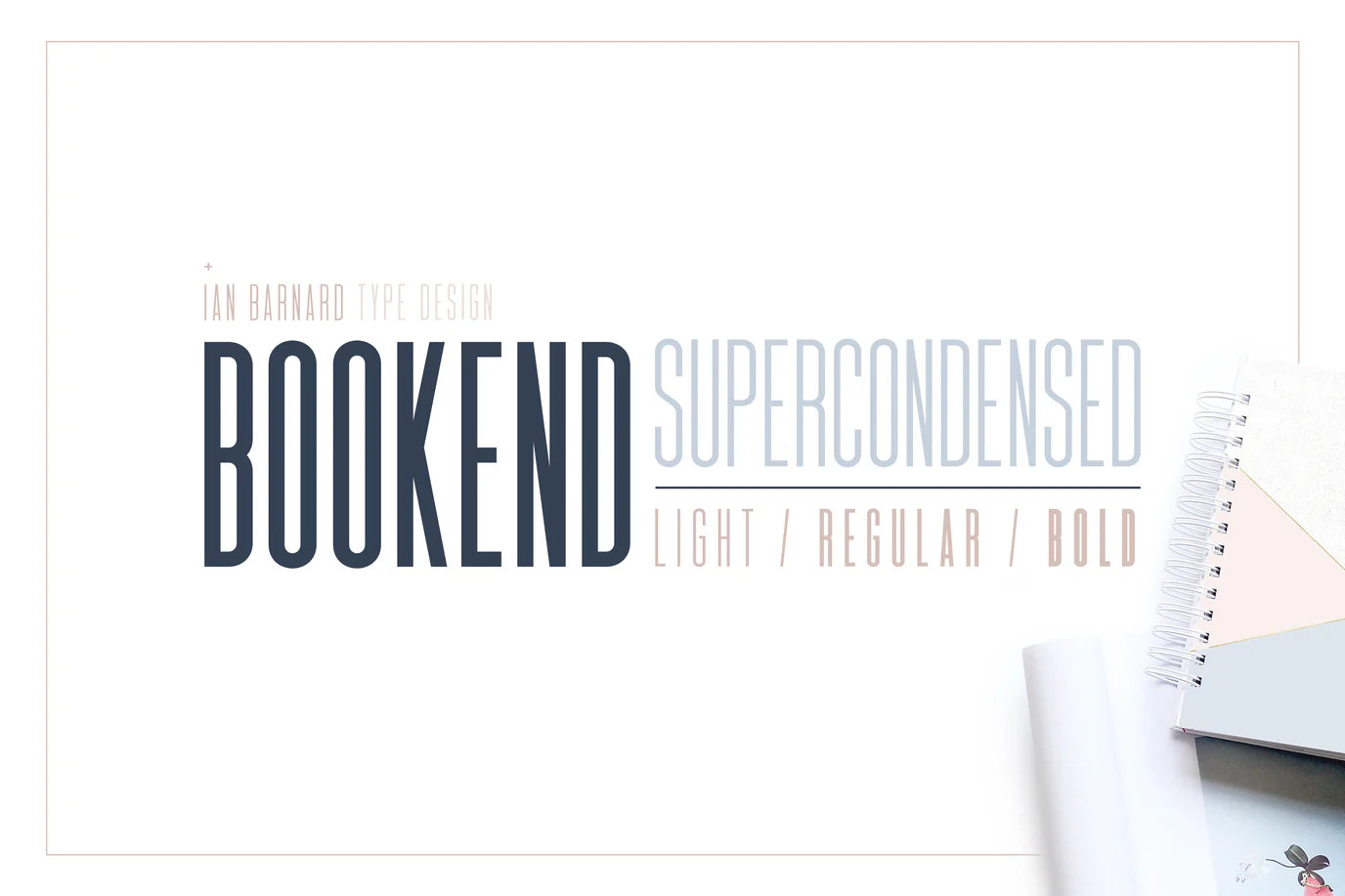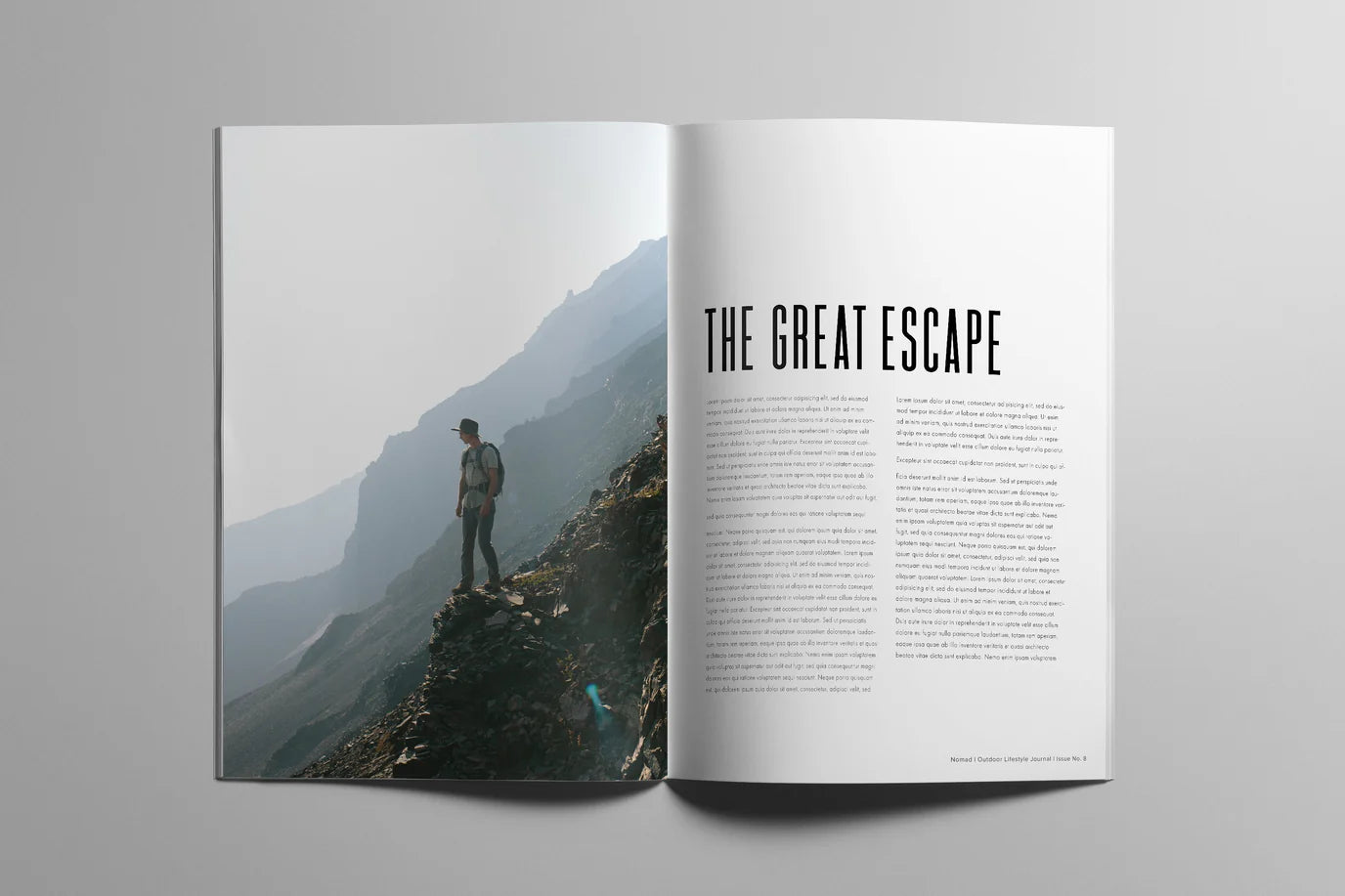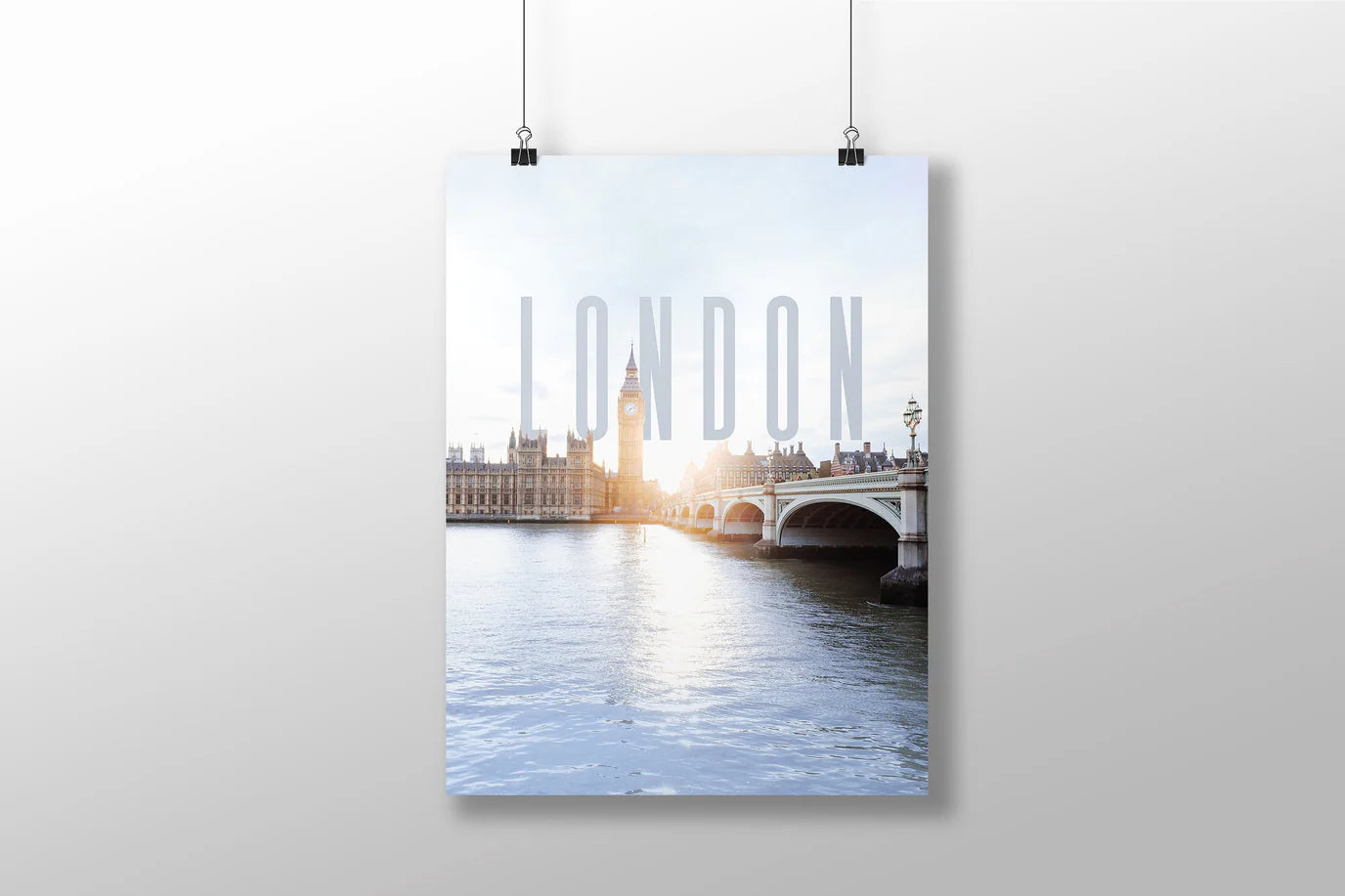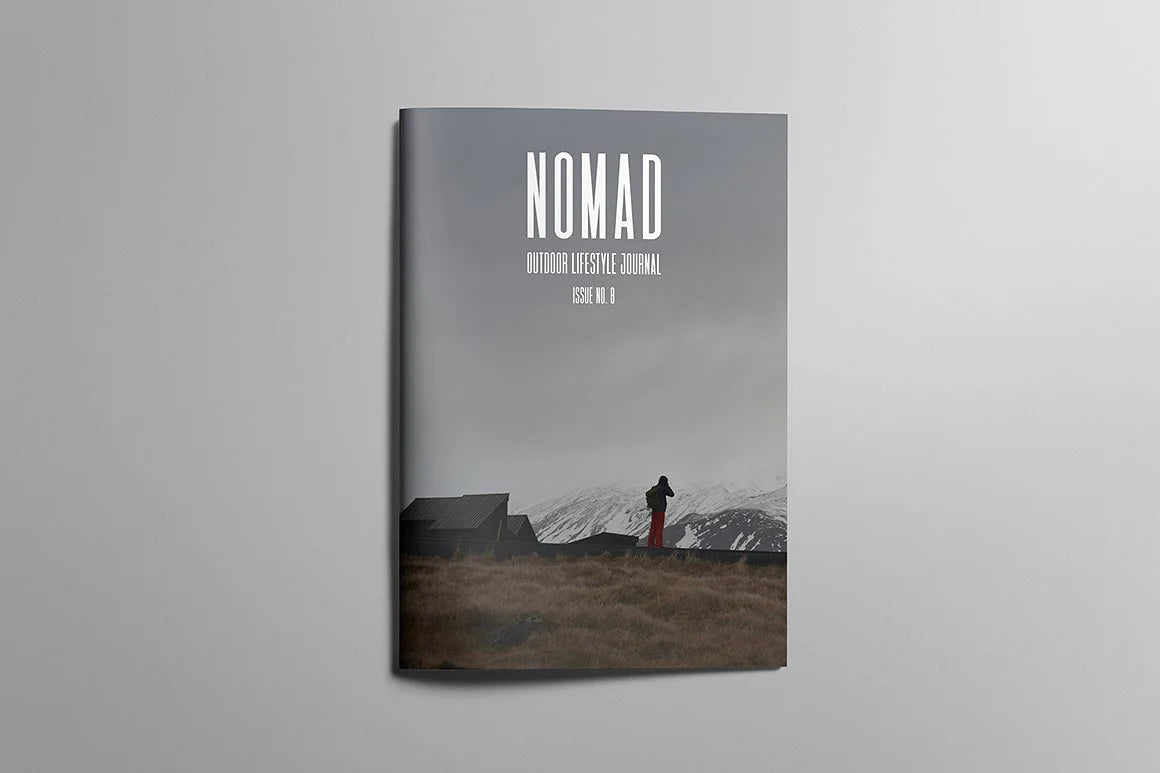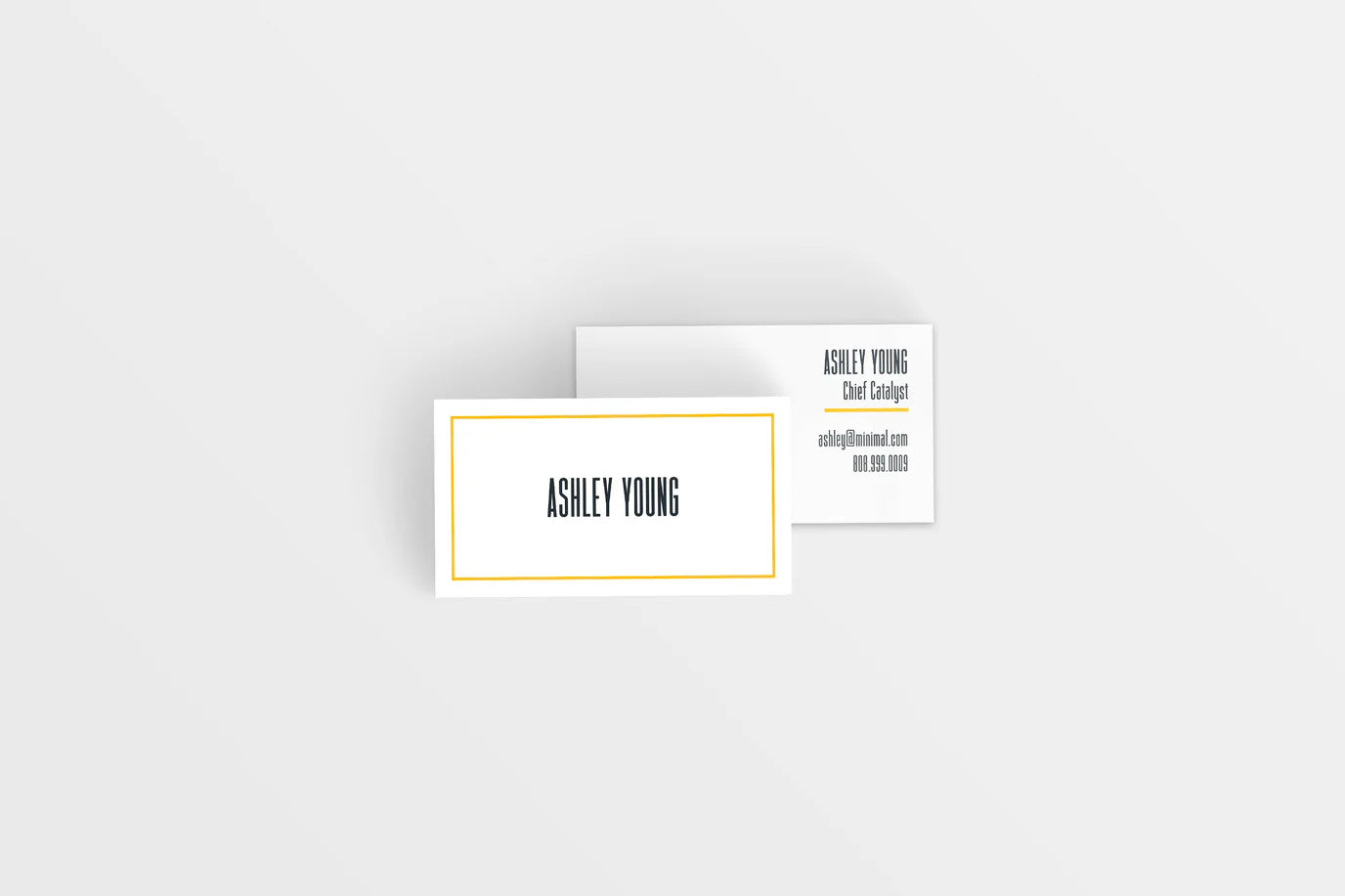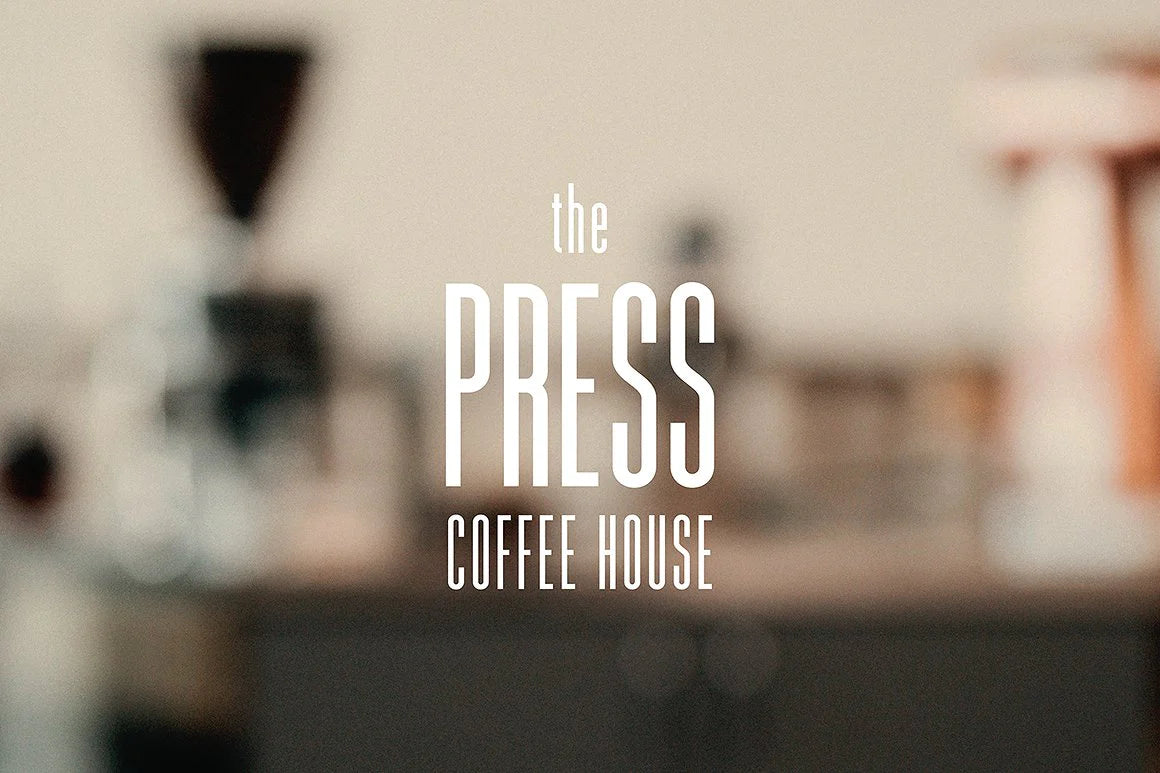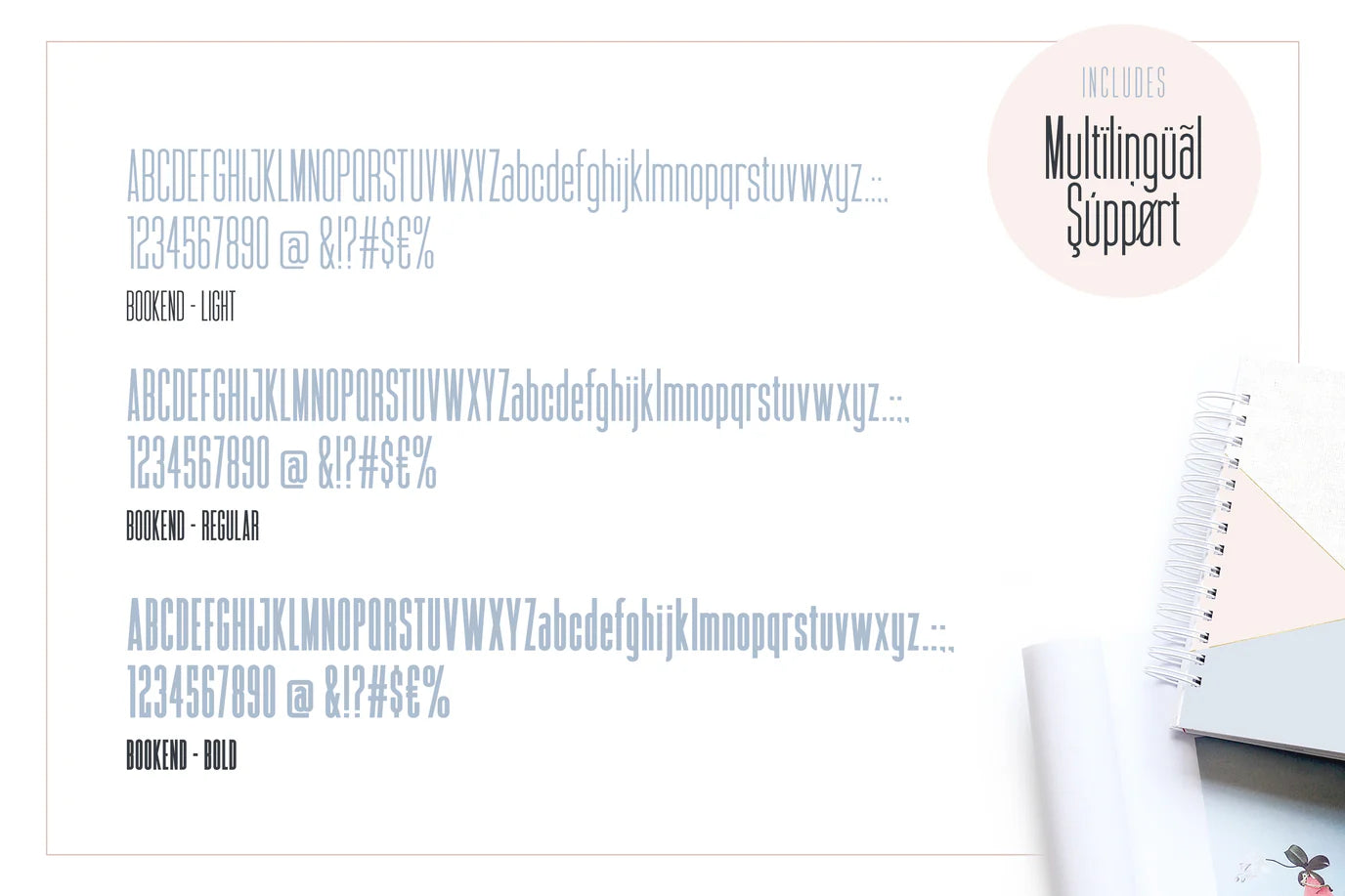
Make a statement with this versatile sans display typeface. With it's super clean lines and clear readability, Bookend is perfect for headlines, logotypes, branding materials, posters, and more.